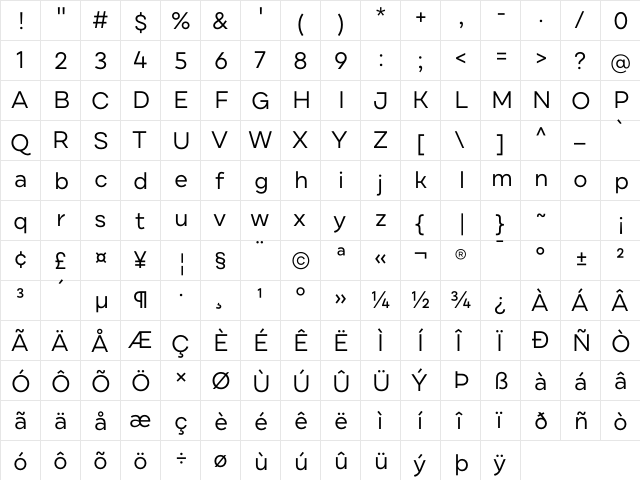
Draft B Regular
| Foundry | Ryan Martinson |
| Designer | Ryan Martinson |
Design Context for Draft B Typeface
Draft B takes a measured approach to typography — its balanced proportions and neutral character make it a reliable workhorse for both digital and print work.